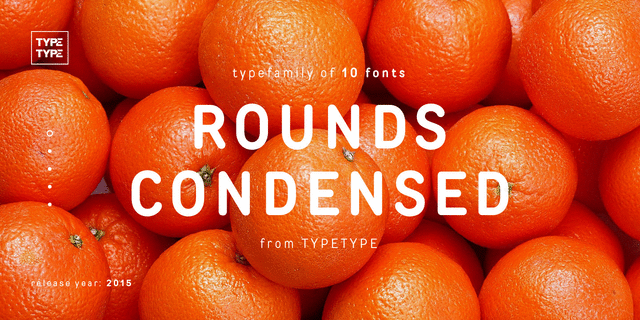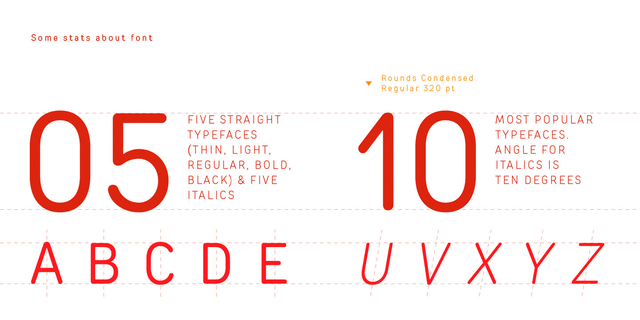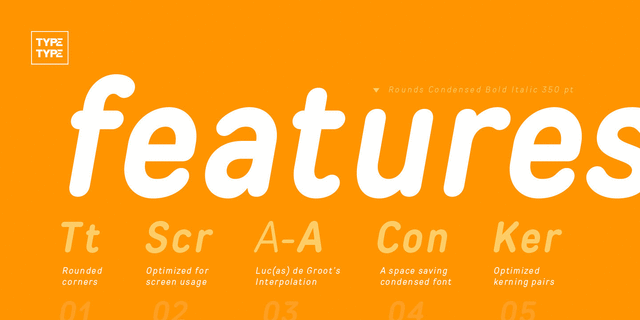
About TT Rounds Condensed — this is the condensed version of the Rounds fontfamily. Rounds Condensed has a very kind and gentle temperament. It contains the most popular typefaces styles: Thin, Light, Regular, Bold, Black and Italics. All fonts are made so that they can be used for short texts (eg logos and headers), and in the long text sets (such as a paragraph of text or newspaper article). Typeface designed by Ivan Gladkikh in TypeType studio in 2015.
Associations for font family TT Rounds CondensedTypeface personality and character:
delicate, clean, easy, chilly, cold, fresh, fashionable, thin, modern, laconic, clear, flat, high-quality, weightless, transparent, intimate, accurate, orderly, logical, slim, tender, air, wire, neon, urban, practical, pleasant, Soft, nice, peaceful, comfortable, peppy, simple, home, kind, affable, children, cute, lush, calm, friendly, cozy, benevolent, smooth, plastic, family, delicious, naive, heavy, massive, fat, plump, strong, appetizing, powerful, notable, bright, active, splashy, rubber
lotion, beauty, Eau de Toilette, shampoo, cosmetics, diet, purity, hygiene, device, gadget, engineer, scheme, technology, ASMR, water, city, interior, yoga, sky, medicines, health, mobile communications, bedroom, house, milk, baby food, coloring, food, retail, confectionery, sweets, bakery products, bakery, cafe, family, toy, buns, bun, dessert, Latte, muffin, smoothie, game, soft toy, juice, children's book, show, TV, sauce, sour cream, ketchup, cheese, cinema, pillow Typeface associated with age: